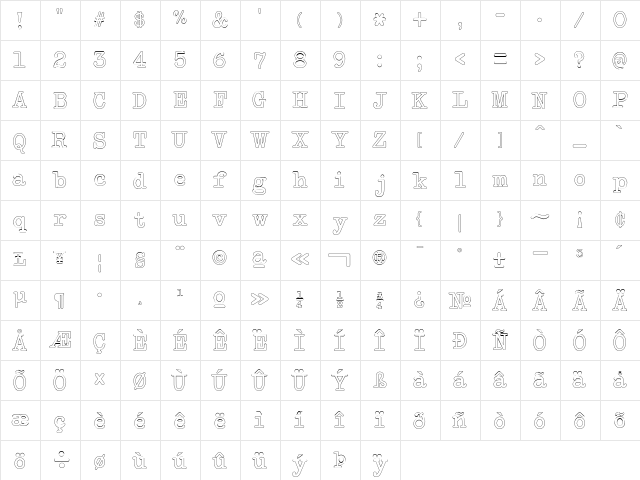
NeoBulletin Outline Regular
| Foundry | Iza W, IntellectaDesign |
Design Context for NeoBulletin Outline Typeface
NeoBulletin Outline is built around its visual character rather than neutral utility — its distinctive forms are designed to make an impression at display sizes.
Font Pairing: Pair with a clean neutral sans-serif for body copy to let NeoBulletin Outline's character lead without overwhelming the composition.
Pro Tip: Use NeoBulletin Outline exclusively at display sizes — it was designed to be seen, not read at length. Let a neutral companion handle body copy.